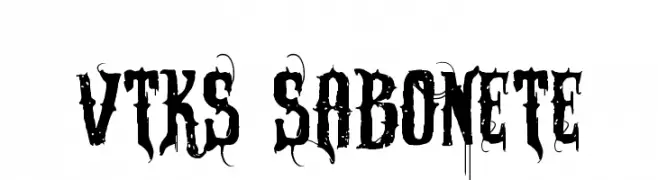
( Fonts by Gyom Seguin - last-soundtrack.daportfolio.com )
A distressed, grungy font with a textured, artistic style.
( Fonts by Jonathan Paquette - www.jonathanpaquette.com )
A bold, distressed font with a grunge, textured style.
A bold, decorative font with a distressed, vintage gothic style.
( Fonts by El Stinger )
A bold, distressed font with a grunge, hand-painted aesthetic.
A bold, distressed font with a grungy, energetic texture.